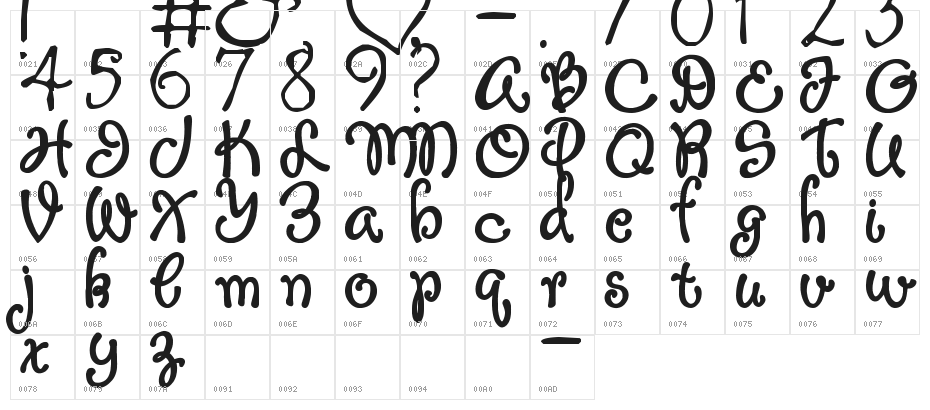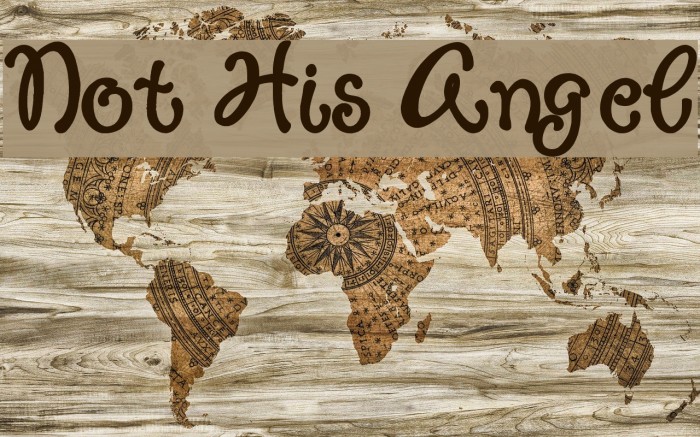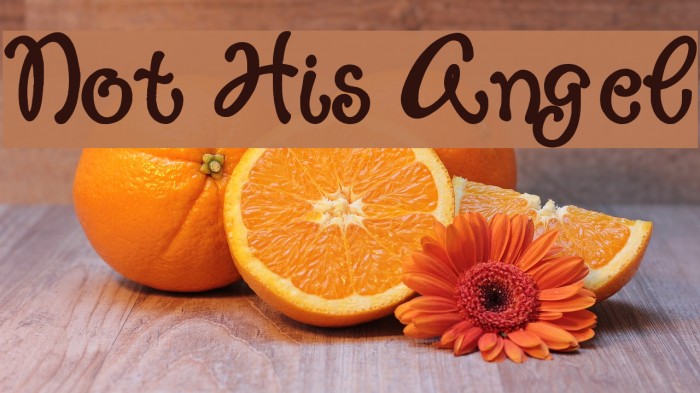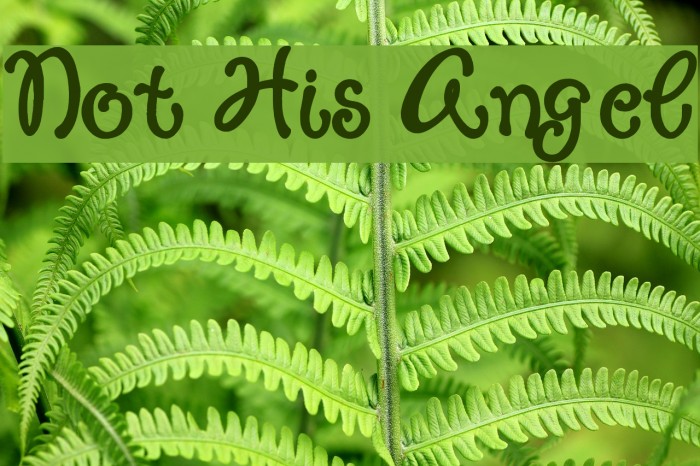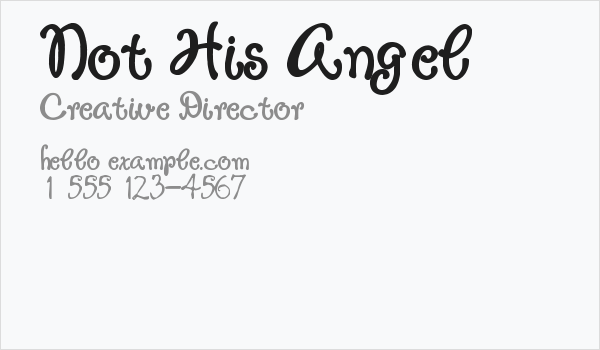
Not His Angel Font
Not His Angel Description
This font features a playful and whimsical script style, characterized by its flowing, interconnected letters that mimic a handwritten aesthetic. The uppercase letters are bold and rounded, with a consistent stroke width that gives them a friendly and approachable appearance. The lowercase letters maintain the same playful quality, with some letters featuring unique loops and curls that add to the font's charm. The numerals are distinct and easy to read, with a slight slant that complements the overall style. Special characters are creatively designed, adding a touch of personality to the font. This font is ideal for projects that require a personal, informal touch, such as greeting cards, invitations, or playful branding.
A playful, whimsical script font with interconnected, rounded letters and a handwritten aesthetic from Decorative fonts.
- Proposed Projects: Ideal for greeting cards, invitations, playful branding, and informal designs.
- Overall Style: Playful, Whimsical
- Use Case: Logos, Invitations, Greeting cards